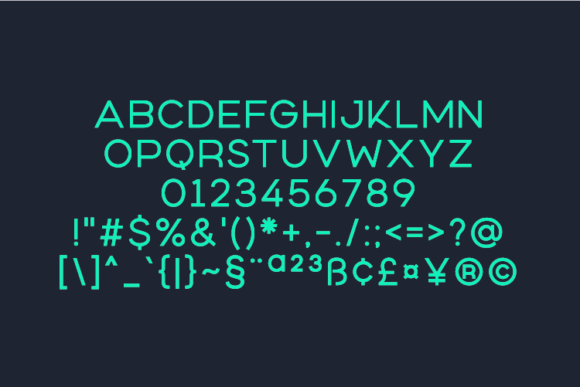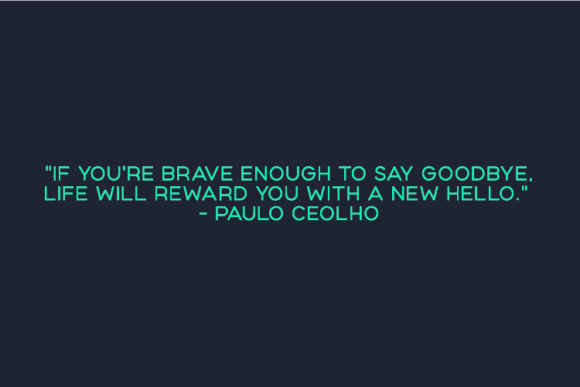
Discover the Delightful Font: Elevate Your Designs with a Stunning Sans Serif
Are you tired of using the same old fonts in your designs? Look no further! Introducing the Delightful Font, a beautiful sans serif font that is sure to complement every project you’re working on. With its clean and modern aesthetic, Delightful is perfect for creating stunning headings, gorgeous invitations, and logos that will leave a lasting impression.
What Makes Delightful Font So Special?
Delightful Font is a versatile and elegant sans serif font that is designed to add a touch of sophistication to any design project. Its sleek lines and curves make it perfect for creating beautiful headings, titles, and text that will grab attention and stand out from the crowd. Whether you’re working on a logo, invitation, or website, Delightful Font is sure to impress.
Features of Delightful Font
Delightful Font comes with a range of features that make it perfect for designers and crafters. Here are just a few of the things you can expect:
- Uppercase Alphabet: Delightful Font features a complete uppercase alphabet, perfect for creating headings, titles, and text that will stand out.
- Numbers and Symbols: In addition to the alphabet, Delightful Font also includes numbers and symbols, making it perfect for creating logos, invitations, and other designs that require a little extra something.
- Sans Serif Design: The clean and modern sans serif design of Delightful Font makes it perfect for creating designs that are both elegant and sophisticated.
Delightful Font is perfect for a wide range of design projects, including:
- Displays: Use Delightful Font to create stunning displays that will grab attention and leave a lasting impression.
- Headers: Add a touch of elegance to your headers with Delightful Font, perfect for websites, blogs, and more.
- Invitations: Create beautiful invitations for weddings, parties, and other special events with Delightful Font.
- Save the Dates: Make your save the date announcements truly special with Delightful Font.
- Weddings: Delightful Font is perfect for creating stunning wedding designs, from invitations to decorations.
Why Choose Delightful Font?
So why choose Delightful Font for your design projects? Here are just a few reasons:
- Unique and Eye-Catching: Delightful Font is a unique and eye-catching font that will help your designs stand out from the crowd.
- Elegant and Sophisticated: The clean and modern design of Delightful Font makes it perfect for creating elegant and sophisticated designs.
- Versatile: Delightful Font is versatile and can be used for a wide range of design projects, from logos to invitations.
In conclusion, Delightful Font is a stunning sans serif font that is perfect for designers and crafters looking to elevate their designs. With its clean and modern aesthetic, Delightful Font is sure to complement every project you’re working on. Whether you’re creating headings, invitations, logos, or more, Delightful Font is the perfect choice. So why wait? Download Delightful Font today and start creating stunning designs that will leave a lasting impression!